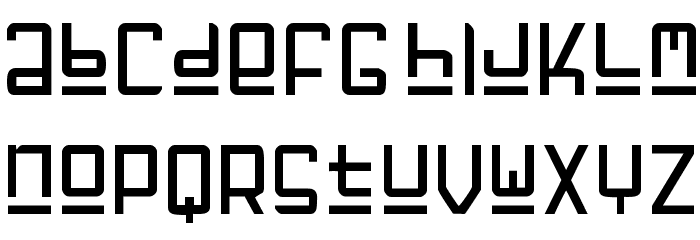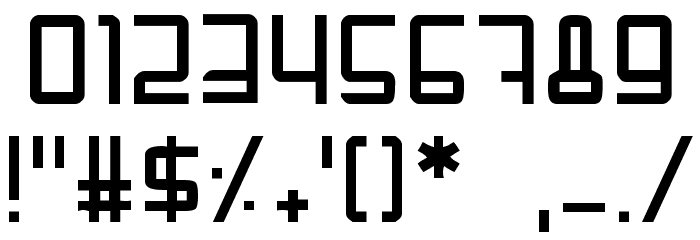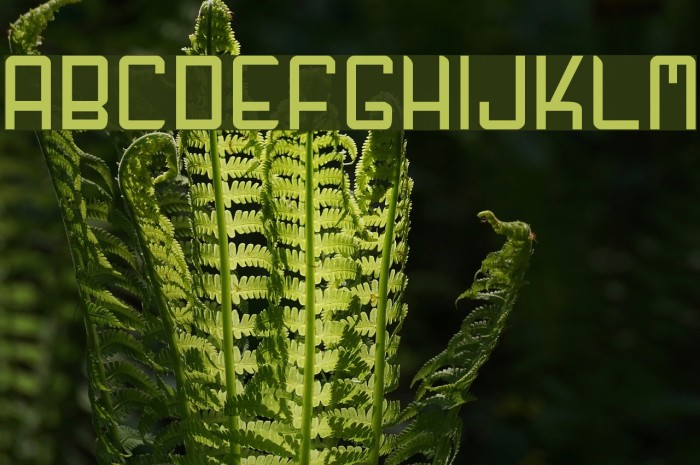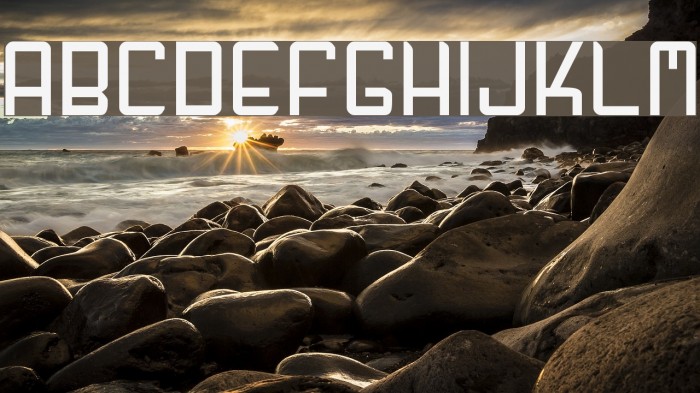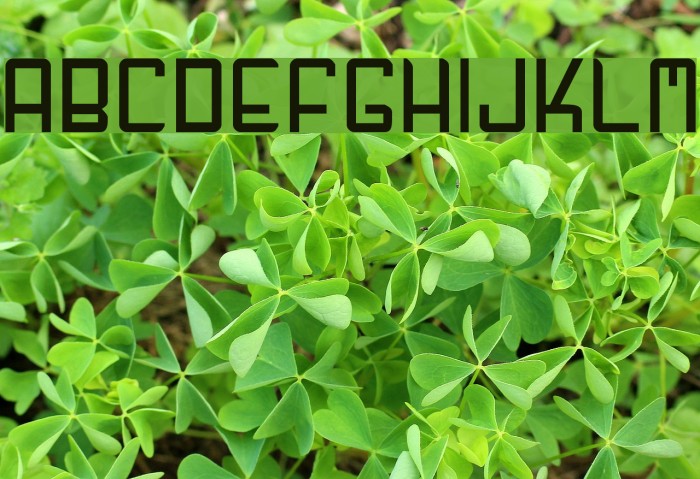
GF Fuffiger Font
This font features a modern, geometric design with a distinct, futuristic aesthetic. The characters are constructed with clean, straight lines and sharp angles, giving it a structured and technical appearance. The uppercase and lowercase letters maintain a consistent height, contributing to a uniform look. The numerals and special characters are designed to match the overall style, ensuring cohesion across all elements. The font's design is both bold and minimalistic, making it suitable for projects that require a contemporary and edgy feel.
A modern, geometric font with a futuristic and structured design.
- Proposed Projects: Ideal for technology branding, sci-fi themed projects, digital interfaces, and modern advertising.
- Overall Style: Futuristic, Geometric